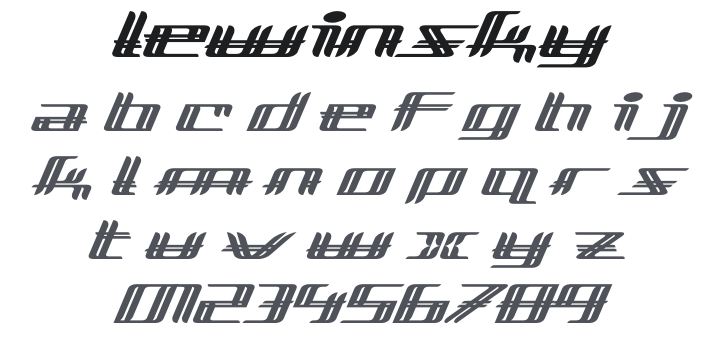
Lewinsky Font
About Lewinsky
Lewinsky is an abstruse, groovy 1990s techno display typeface with eccentric, hard-to-categorize letterforms that feel like a relic from the era of early internet graphic design — bold, abstract, and deliberately weird. Its unique shapes defy easy classification yet carry an undeniable late-90s attitude. Perfect for retro-tech posters, Y2K-themed branding, underground club flyers, and any design channeling that era's unhinged digital energy.